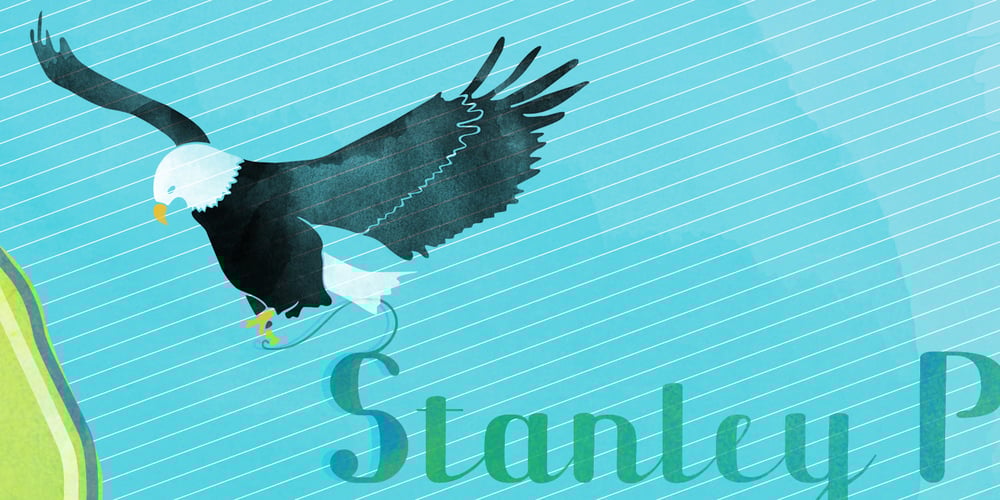
Canadian Animals Font Family was designed by Natsuko Hayashida and published by Okaycat. Canadian Animals contains 1 styles and family package options. Canadian Animals is a picture font with highly detailed illustrations drawn by hand. Comes in outline and silhouettes, it is easy to colour in photoshop. These detailed vector illustrations will help you create your ultimate design.